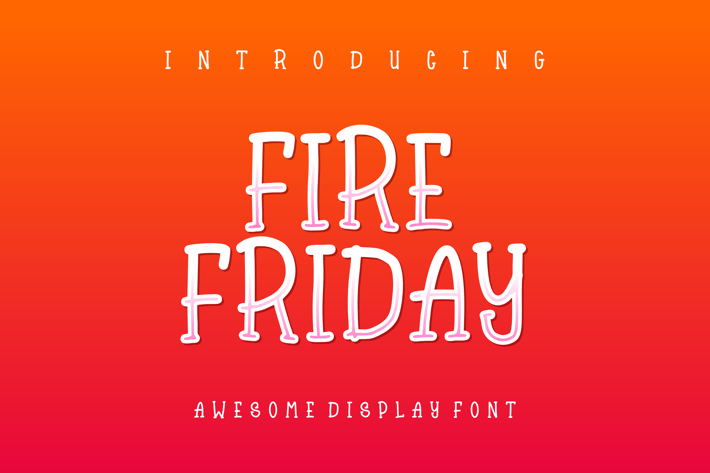
Fire Friday Font
Introducing our new product Fire Friday Font
Fire Friday Font is a bold and authentic display font. The font is suitable for any branding project like logo, t-shirt printing, esport, and many more. outstanding in a wide range of contexts.